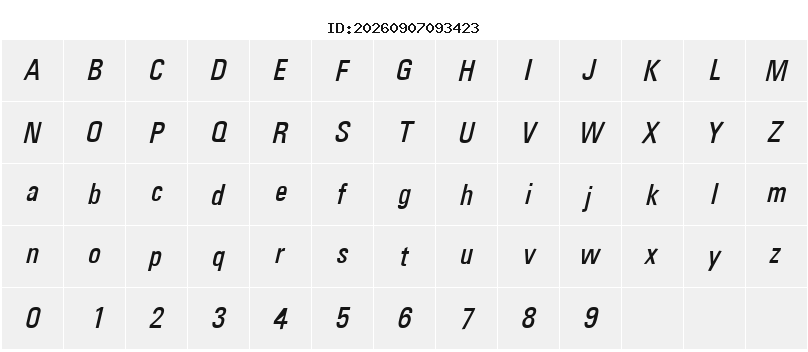
• Font Name: Universal Condensed
• Font ID: WSI: UniversalCondensed Italic
• Full Font Name: Universal Condensed Italic
• Version: WSI: 11/27/92
• PostScript Name: UniversalCondensed Italic
About Universal Condensed.ttf
Universal Condensed.ttf is a modern, elegant sans-serif font designed for ultimate readability and visual harmony. Perfect for branding, headlines, web design, and print materials.